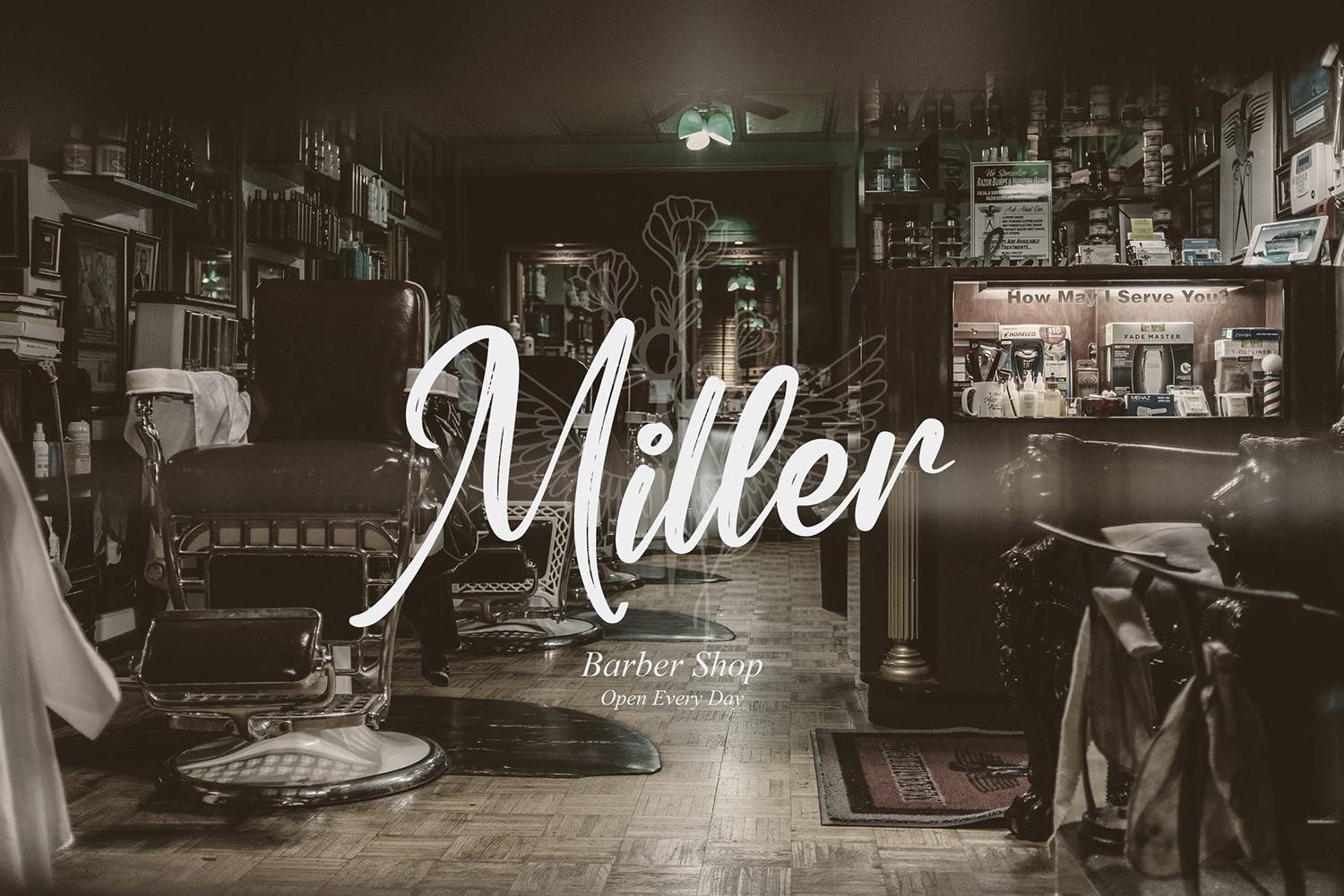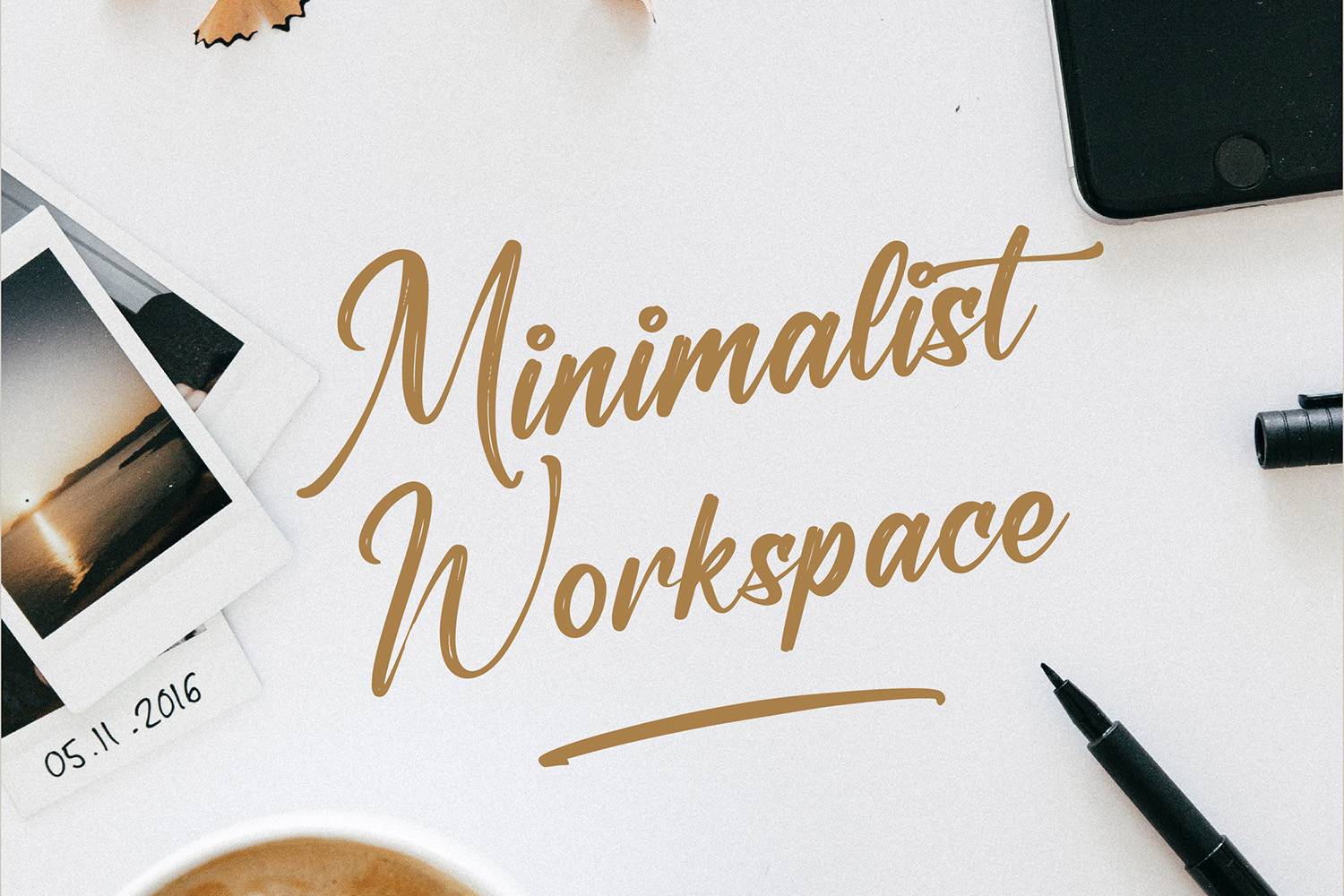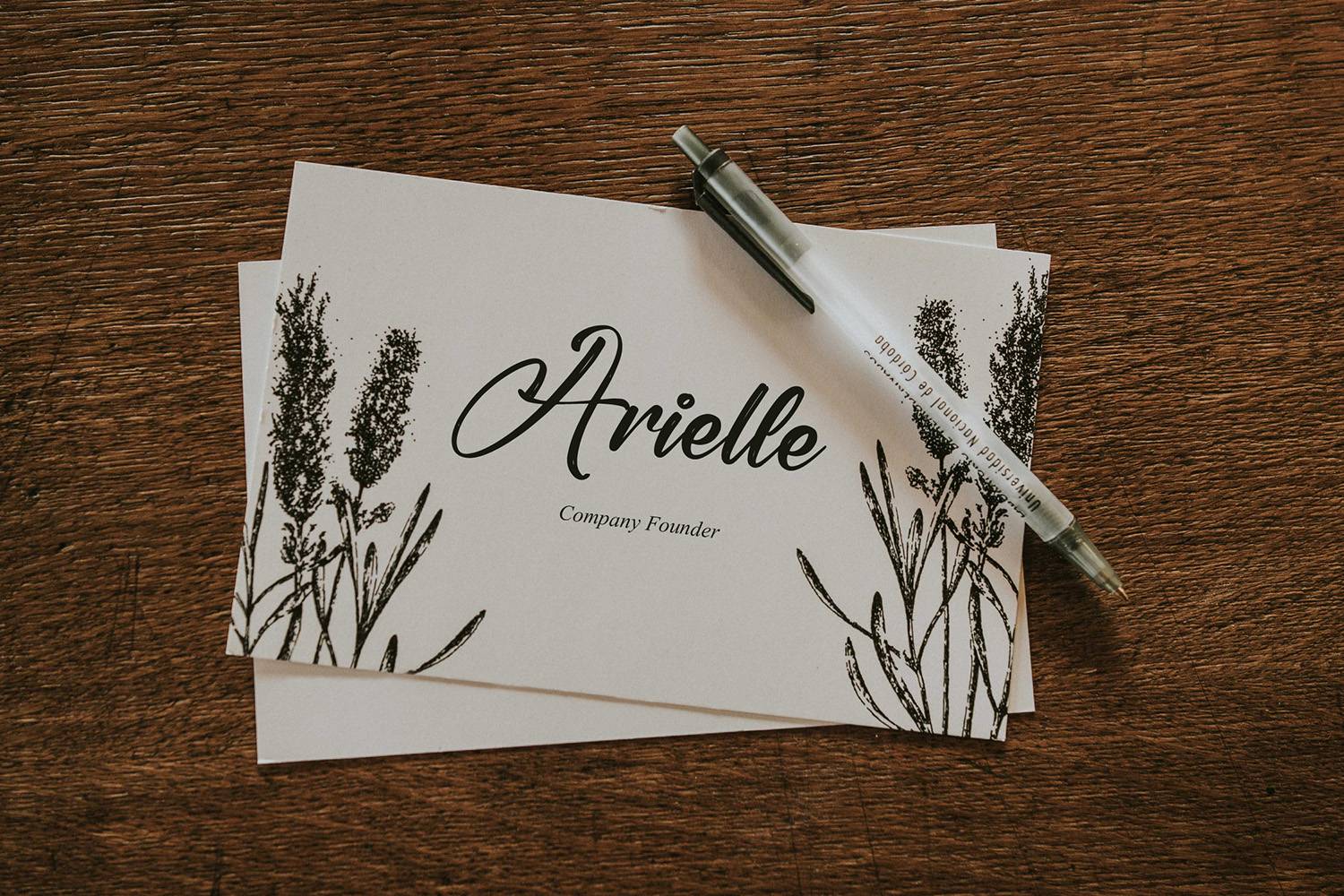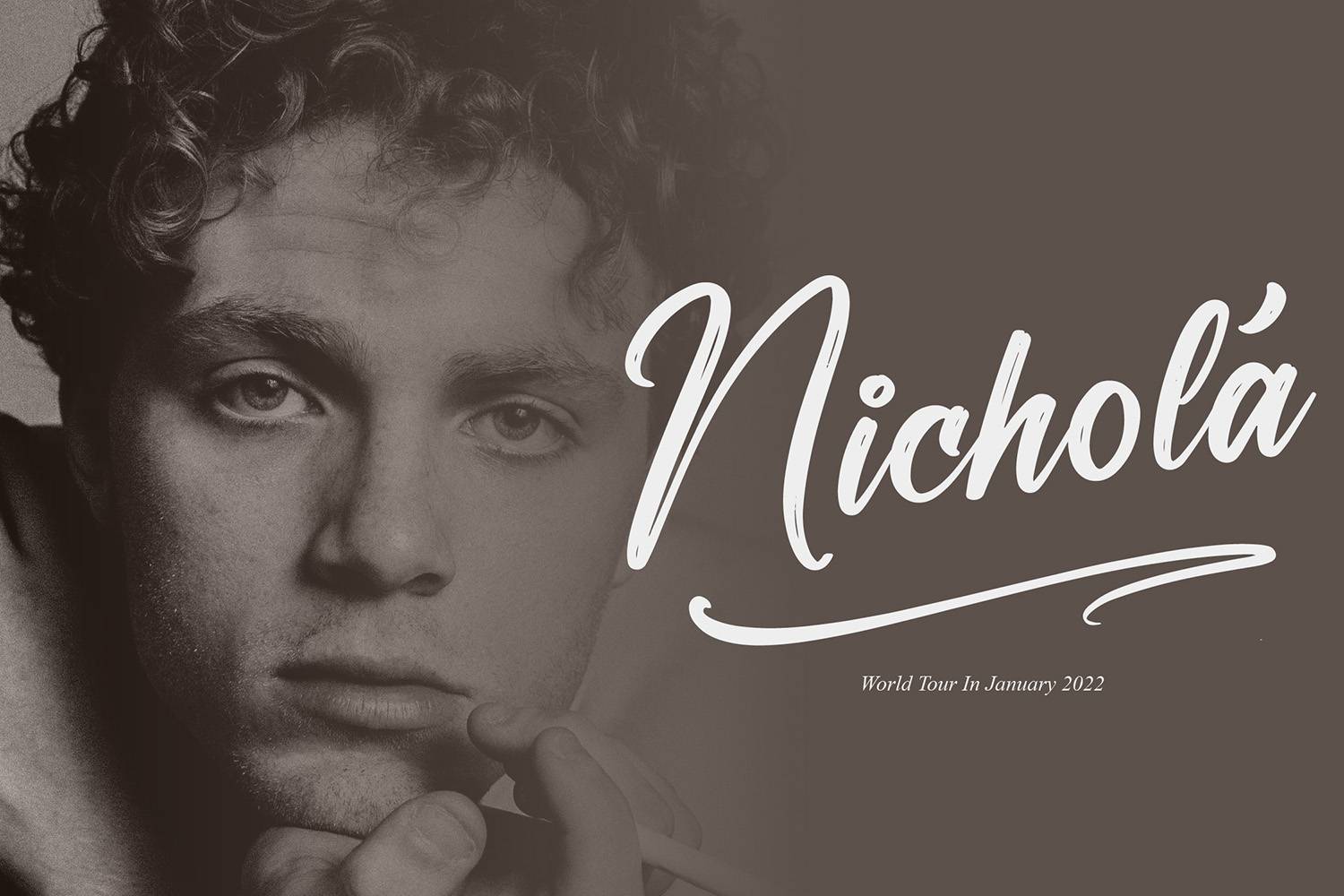
Anthony Hunters is an elegant script font with a sophisticated, handwritten style that features smooth, flowing strokes and a refined, slightly informal charm. Its varied line weight and cursive letterforms make it perfect for adding a personal, artistic touch to invitations, branding, and logos, lending a sense of luxury and creativity while maintaining readability. This font works well in projects that require a mix of elegance and approachability, such as fashion, beauty, or lifestyle designs.
Anthony Hunters Font
About Anthony Hunters Font
| Font family | Anthony Hunters Font |